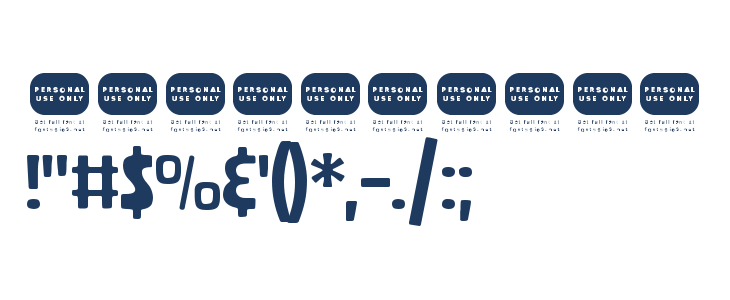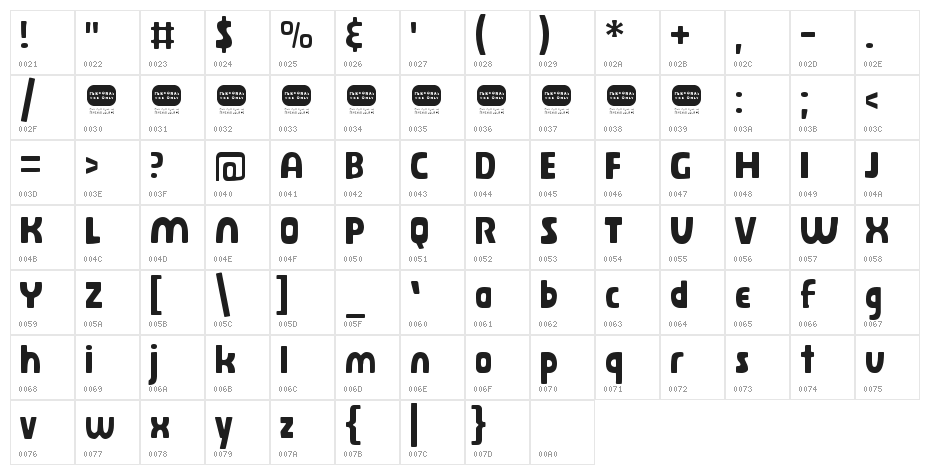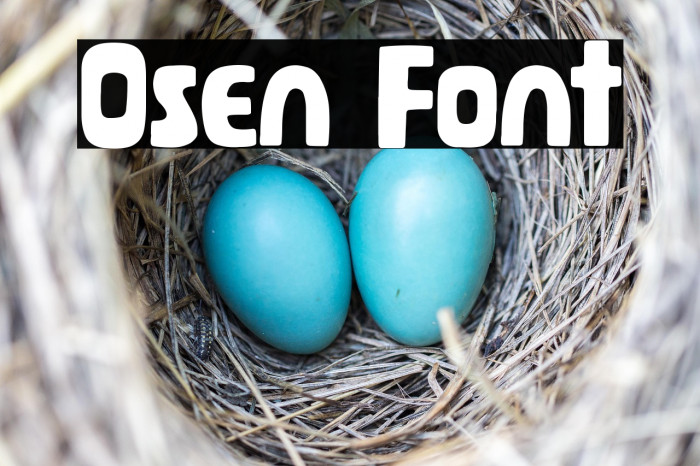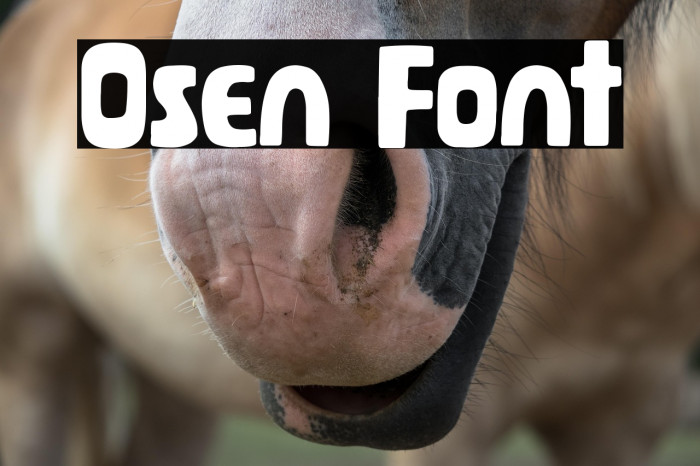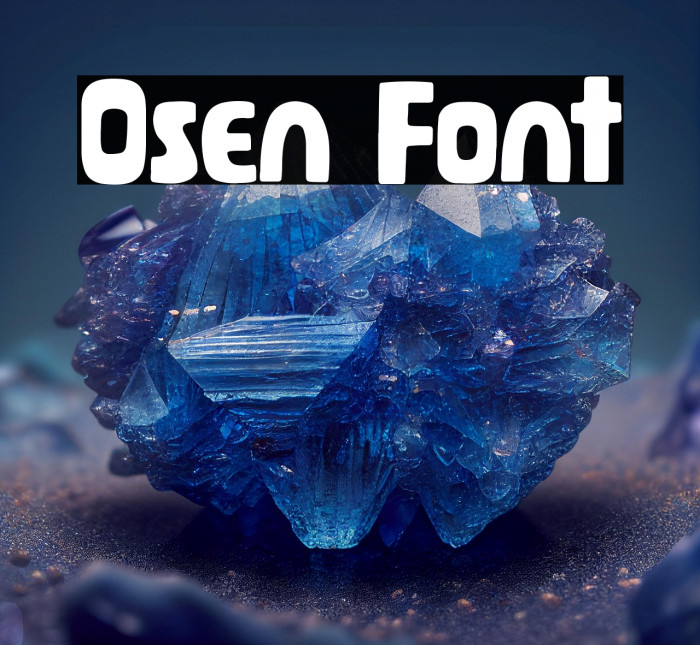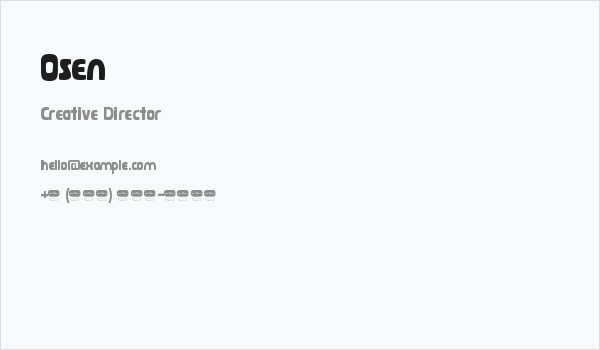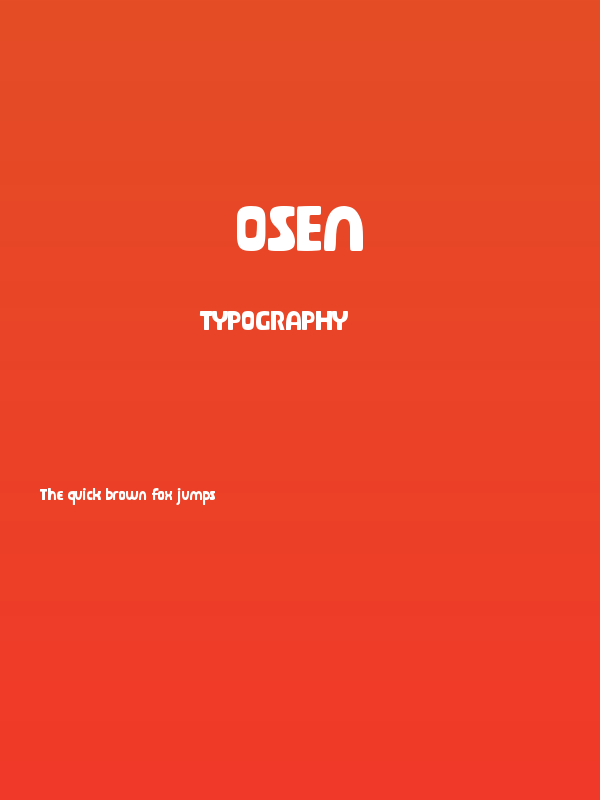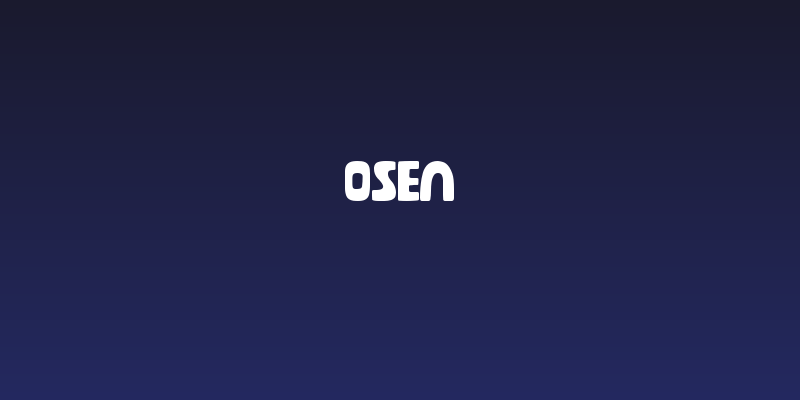
Osen Font
Osen Description
This font features a bold and playful design with rounded edges and a slightly condensed form. The characters are uniformly thick, giving it a strong presence and making it highly legible. The uppercase and lowercase letters maintain a consistent style, with a slight quirky touch that adds personality. The numbers and special characters follow the same design principles, ensuring a cohesive look across all text elements. This font's unique style makes it stand out, while its simplicity ensures it remains versatile for various applications.
| Overall Style | Playful, Modern |
| Proposed Projects | Ideal for children's books, playful branding, posters, and creative projects that require a fun and approachable typeface. |